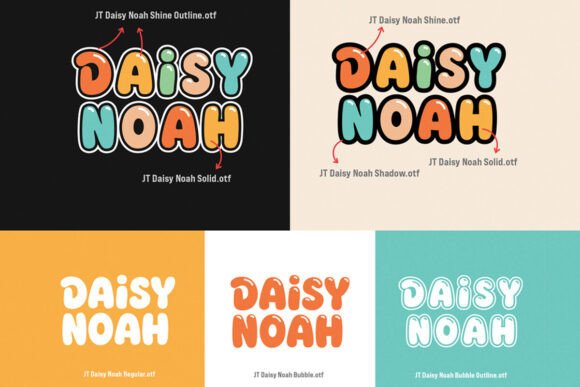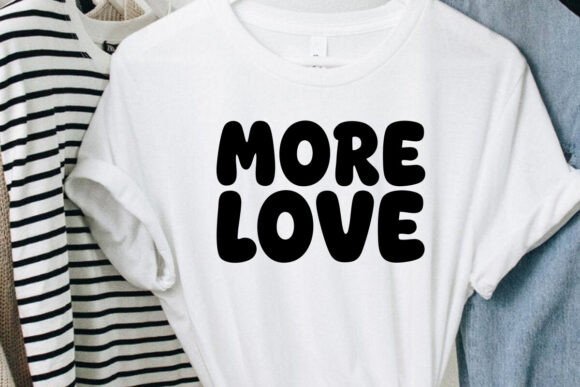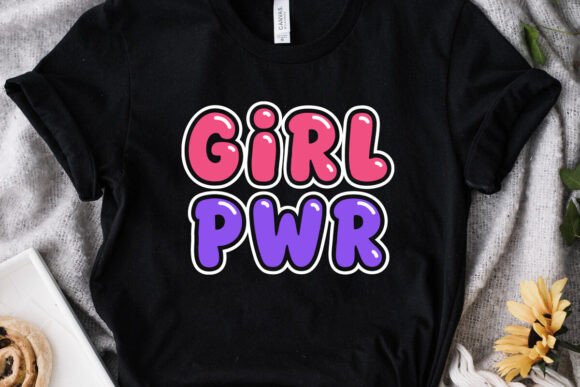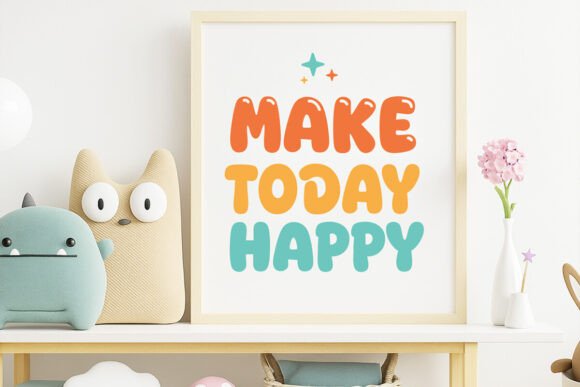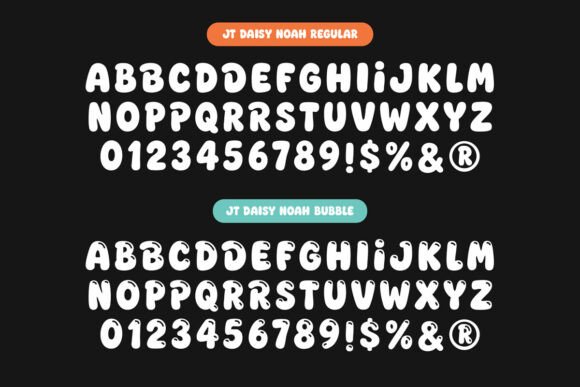
Daisy Noah Font: The Ultimate Groovy Addition to Your Design Arsenal
Are you tired of using the same old fonts in your designs? Look no further than the Daisy Noah Font, a bubble, groovy, bubbly retro, boho, and fun 70s display font that’s sure to add a touch of whimsy to any project. Whether you’re a designer, crafter, or simply someone who loves to get creative, this font is the perfect addition to your arsenal.
What is Daisy Noah Font?
Daisy Noah Font is a unique and eye-catching font that’s inspired by the fun and carefree vibes of the 1970s. With its bubbly, retro aesthetic, this font is perfect for creating eye-catching logos, branding, and quotes that are sure to grab attention. Whether you’re using it for crafts, digital design, presentations, or making greeting cards, Daisy Noah Font has the potential to become your new favorite, no matter the occasion!
Key Features of Daisy Noah Font
- Bubble and Groovy Design: The Daisy Noah Font features a unique bubble and groovy design that’s reminiscent of the 1970s. Its fun and playful aesthetic makes it perfect for adding a touch of whimsy to any design.
- Retro and Boho Vibes: This font is inspired by the retro and boho styles of the 1970s, making it perfect for designers and crafters who love vintage aesthetics.
- Versatile Use: Daisy Noah Font can be used for a wide range of projects, from crafts and digital design to presentations and greeting cards.
- Easy to Read: Despite its playful design, Daisy Noah Font is easy to read, making it perfect for use in quotes, headings, and titles.
Why Choose Daisy Noah Font?
So why choose Daisy Noah Font over other fonts on the market? Here are just a few reasons why this font stands out:
- Unique Design: The Daisy Noah Font features a unique design that’s unlike any other font on the market. Its bubble and groovy aesthetic makes it perfect for adding a touch of personality to any design.
- Highly Versatile: This font can be used for a wide range of projects, from digital design to crafts and paper crafting.
- Great for Branding: The unique design of Daisy Noah Font makes it perfect for creating eye-catching logos and branding that will help your business stand out.
How to Use Daisy Noah Font
So how can you use Daisy Noah Font in your designs? Here are just a few ideas to get you started:
- Create Eye-Catching Logos: Use Daisy Noah Font to create unique and eye-catching logos that will help your business stand out.
- Add a Touch of Whimsy to Your Crafts: This font is perfect for adding a touch of whimsy to your crafts, from paper crafting to sewing and embroidery.
- Make Beautiful Greeting Cards: Use Daisy Noah Font to create beautiful and unique greeting cards that will make your friends and family smile.
- Enhance Your Digital Designs: This font is perfect for adding a touch of personality to your digital designs, from social media graphics to presentations and more.
In conclusion, the Daisy Noah Font is a unique and versatile font that’s perfect for designers, crafters, and anyone who loves to get creative. With its bubble, groovy, bubbly retro, boho, and fun 70s display font design, this font is sure to add a touch of whimsy to any project. Whether you’re using it for crafts, digital design, presentations, or making greeting cards, Daisy Noah Font has the potential to become your new favorite font. So why wait? Download Daisy Noah Font today and start adding a touch of groovy fun to your designs!